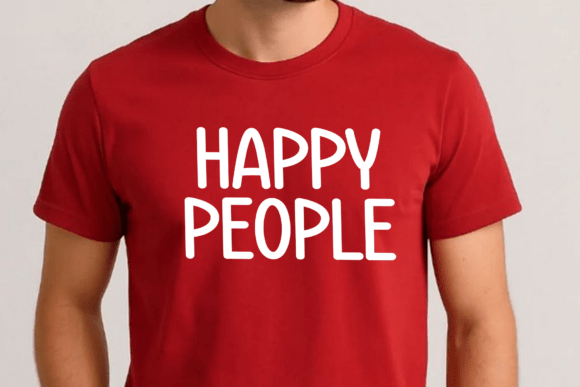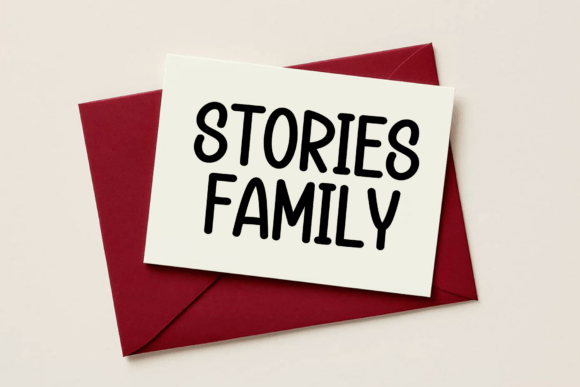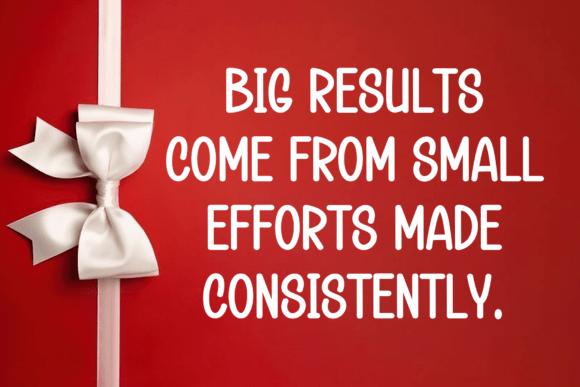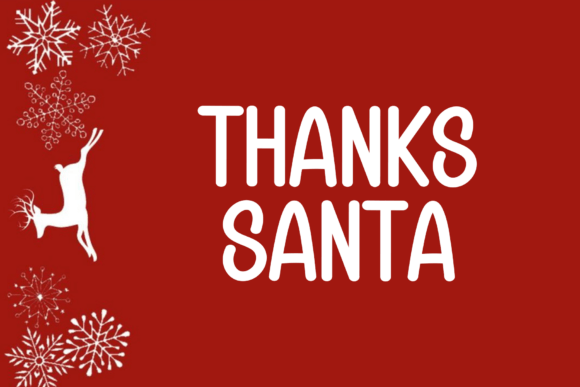
Hello Christmas Font: Elevate Your Designs with a Touch of Modern Elegance
Are you on the lookout for a font that combines professionalism with a dash of creativity? Look no further than the Hello Christmas Font. This smart and minimal handwritten sans-serif font is designed to bring a soft yet striking appearance to your projects, making it perfect for a wide range of applications.
What Makes Hello Christmas Font Stand Out?
Hello Christmas Font boasts rounded corners and unique letterforms that set it apart from more traditional fonts. Its design strikes a delicate balance between professionalism and creativity, making it an excellent choice for designers and crafters looking to add a modern edge to their work.
Whether you’re working on branding, social media content, logos, or digital applications, this font is versatile enough to meet your needs. Its modern aesthetic ensures that your projects look contemporary and visually appealing, helping you to capture the attention of your audience.
Key Features of Hello Christmas Font
- Smart and Minimal Design: The font’s minimalist approach ensures that it remains clean and uncluttered, making it easy to read and versatile for various applications.
- Handwritten Sans-Serif: The handwritten touch gives the font a personal and approachable feel, while the sans-serif aspect keeps it modern and clean.
- Rounded Corners: The rounded corners add a softness to the font, making it more inviting and less sharp than traditional fonts.
- Unique Letterforms: Each letterform is uniquely designed, providing the font with a distinctive character that can help your designs stand out.
The versatility of Hello Christmas Font makes it suitable for a wide range of projects. Here are a few ideas on how you can use this font:
- Branding: Create a memorable brand identity with a logo or wordmark that stands out, thanks to the font’s unique and modern design.
- Social Media Content: Elevate your social media posts and stories with a font that captures attention and adds a professional touch.
- Logos: Design logos that are not only visually appealing but also convey a sense of modernity and approachability.
- Digital Applications: Use the font in digital products, such as apps, websites, and digital marketing materials, to give them a contemporary look.
Why Choose Hello Christmas Font?
In a world where design plays a crucial role in communication, choosing the right font can make all the difference. Hello Christmas Font offers:
- Uniqueness: Stand out from the crowd with a font that is not only beautiful but also unique.
- Versatility: Use it across various platforms and applications, from print to digital.
- Modern Appeal: Keep your designs looking current and appealing with a font that embodies modern design principles.
Hello Christmas Font is more than just a font; it’s a design statement. Its smart and minimal design, combined with its handwritten and sans-serif elements, makes it a powerful tool for designers and crafters. Whether you’re looking to elevate your branding, create engaging social media content, design memorable logos, or enhance your digital applications, this font is an excellent choice.
Embrace the modern elegance and versatility of Hello Christmas Font in your next project. With its unique letterforms and rounded corners, it’s sure to add a soft yet striking appearance that captures your audience’s attention. Say hello to a world of creative possibilities with Hello Christmas Font.